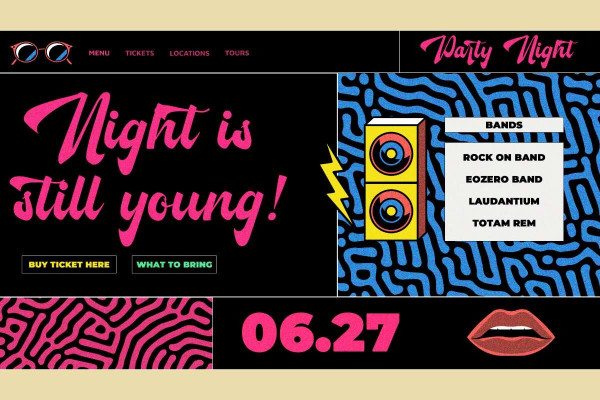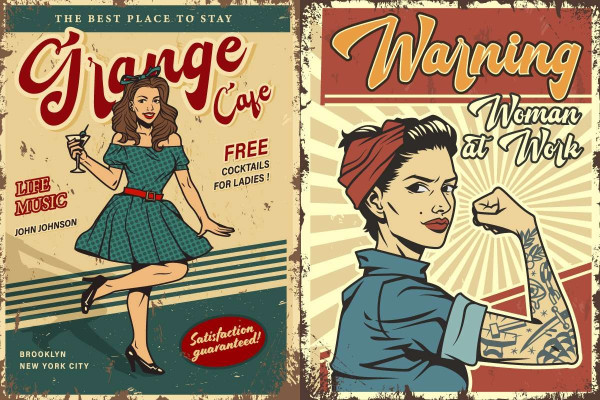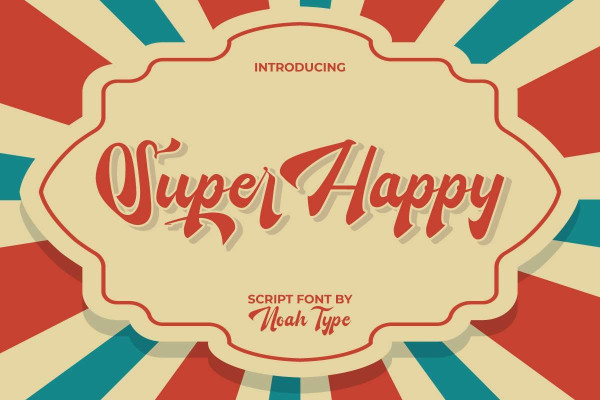
Super Happy Font
Super Happy Font is an artistic retro vintage script font with old poster style. The appearance of this font is thick with the feel of the 80’s which will make people nostalgic and happy when they see your design, such as business card, custom design, invitation, label, magazine catalog, menu, poster, product packaging, quote, title, website, and more!
Super Happy Font includes full set of Uppercase and Lowercase Basic Characters, Numerals, and Punctuation. It also contain Ligature and Swoosh characters that will add perfection and making it suitable for many industries, such as cosmetic, fashion, florist, furniture, interior design, perfume, restaurant, skincare, spa and salon, wedding or event organizer, etc.